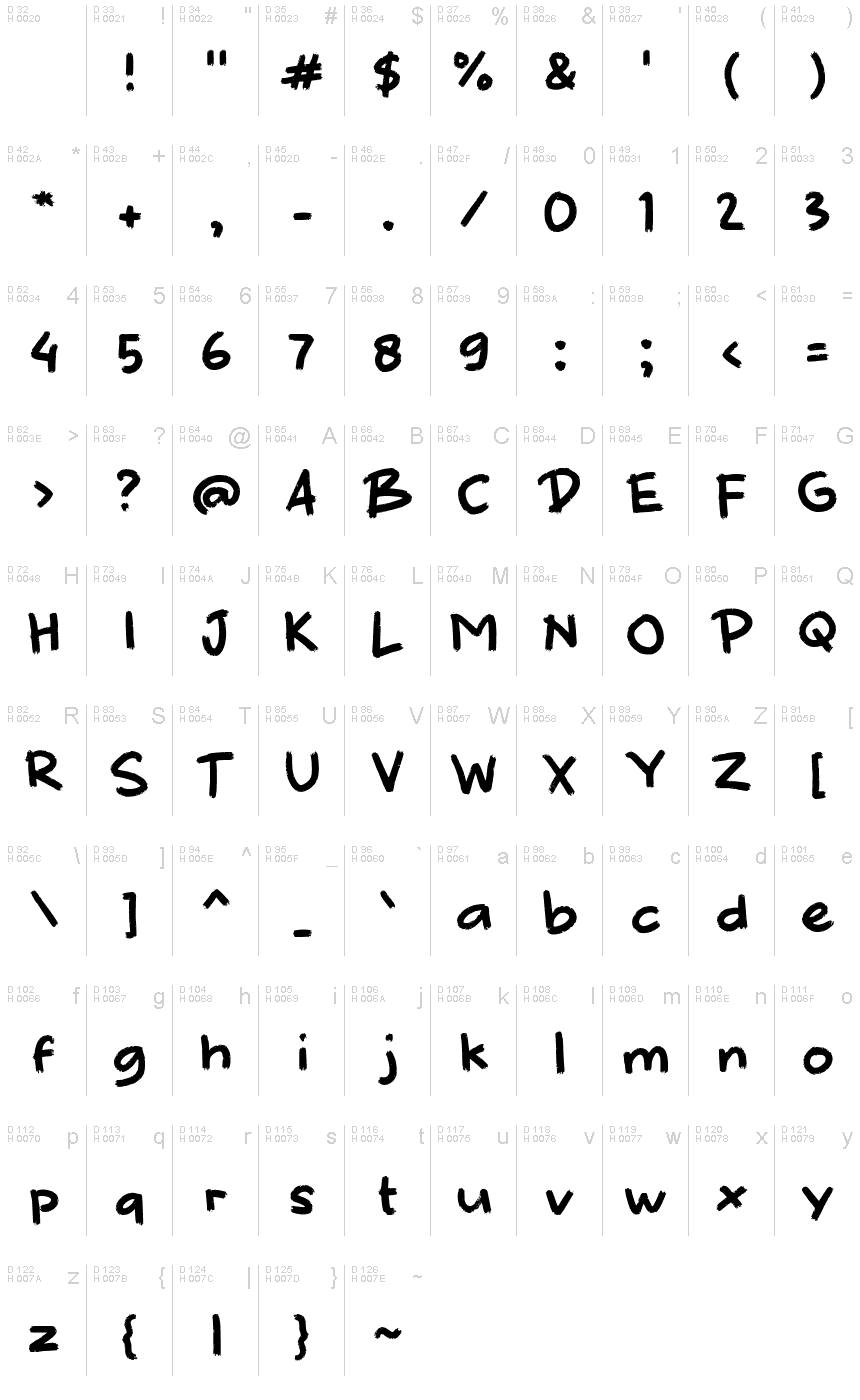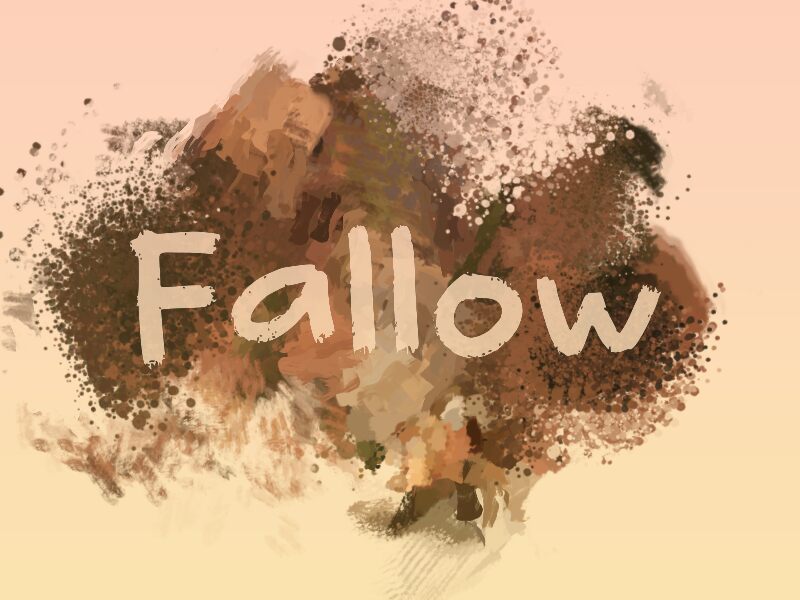
Fallow
Fallow, a captivating brush font by wep, brings a touch of artistic flair to any project. With its semi-bold weight and semi-expanded width, Fallow strikes the perfect balance between boldness and readability.
This versatile typeface is ideal for adding an organic and handcrafted feel to various design projects. From eye-catching logos and branding materials to stylish packaging designs and social media graphics, Fallow is sure to make a lasting impression. Embrace the beauty of brush strokes with this unique font that effortlessly combines elegance and authenticity.